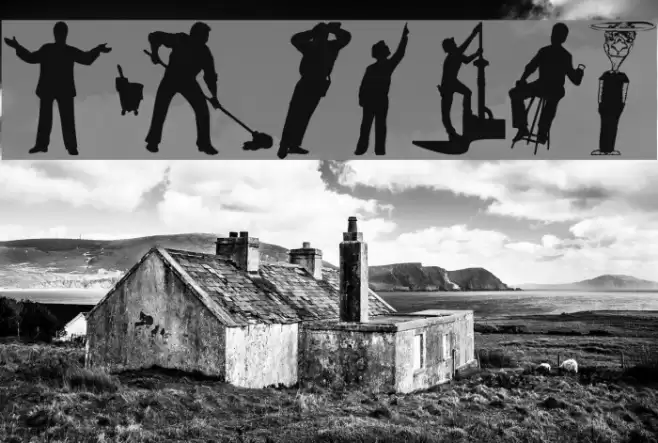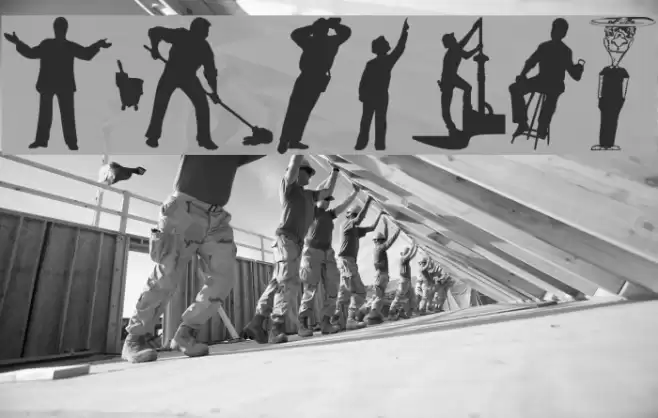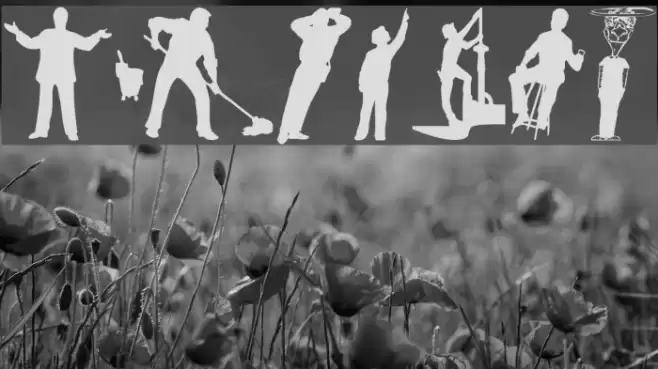
Working Font
Working Description
A playful, illustrative font composed of black silhouette figures in various work-related and dynamic poses, replacing traditional letterforms with detailed human and cartoonish shapes, resulting in a highly decorative and unconventional appearance.
Silhouette-based decorative font using work-themed figures as letterforms from Uncategorized fonts.
- Proposed Projects: Posters, editorial illustrations, event flyers, creative branding, novelty headlines.
- Overall Style: Decorative, Playful, Whimsical
- Use Case: Headlines, Posters, Themed Events, Artistic Projects